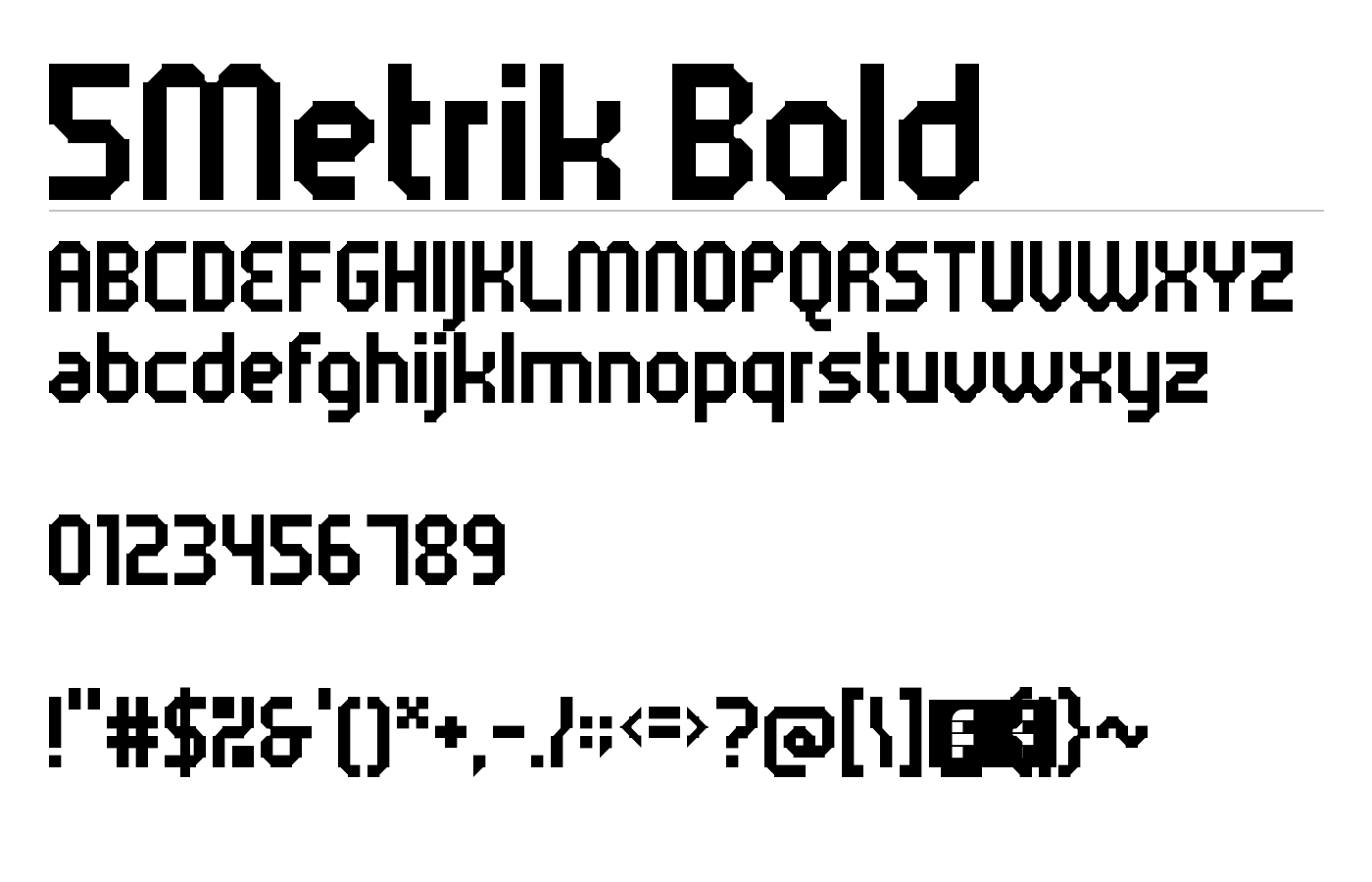
5Metrik Bold is a striking, bold sans serif font with a strong geometric and blocky design, characterized by sharp corners and wide letterforms that create a modern, tech-inspired feel. Its consistent heavy weight and sturdy construction make it perfect for impactful headlines, logos, and branding projects where a futuristic, industrial aesthetic is desired. This font stands out in digital and print contexts that require bold visibility and a clean, structured look.
5Metrik Bold Font
About 5Metrik Bold Font
| Font family | 5Metrik Bold Font |
| Designer | Noah - 11 year old typomaniac |